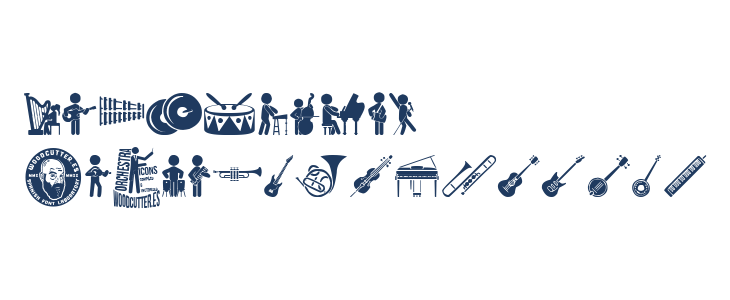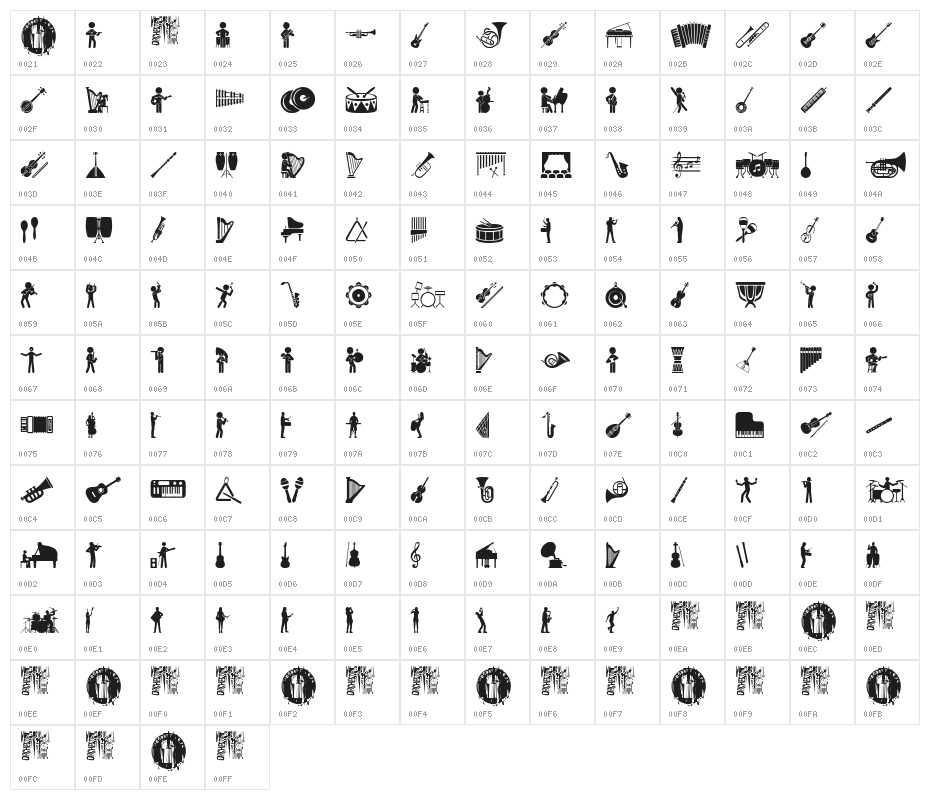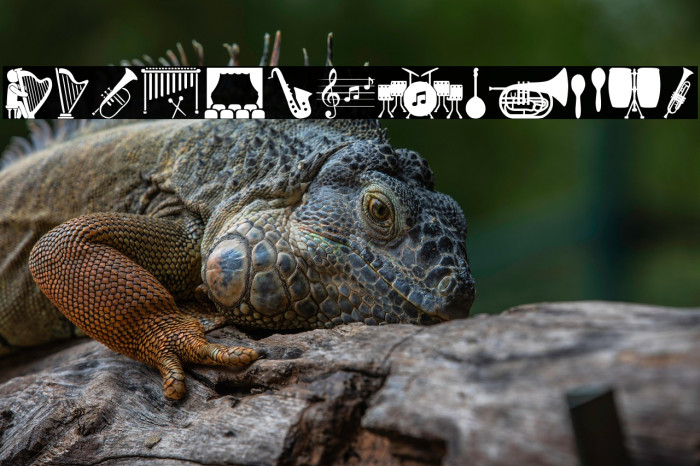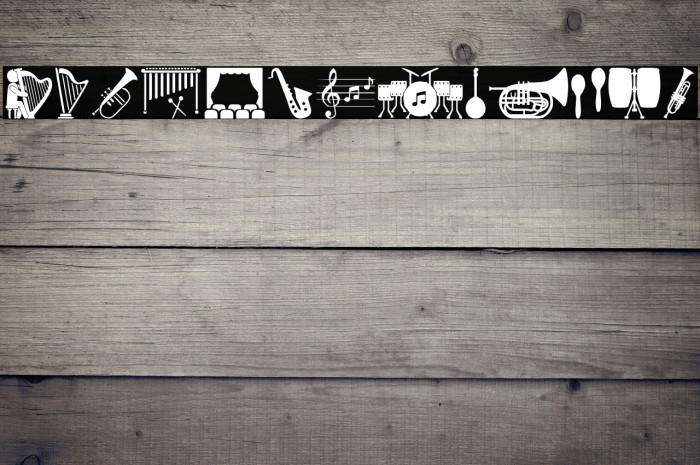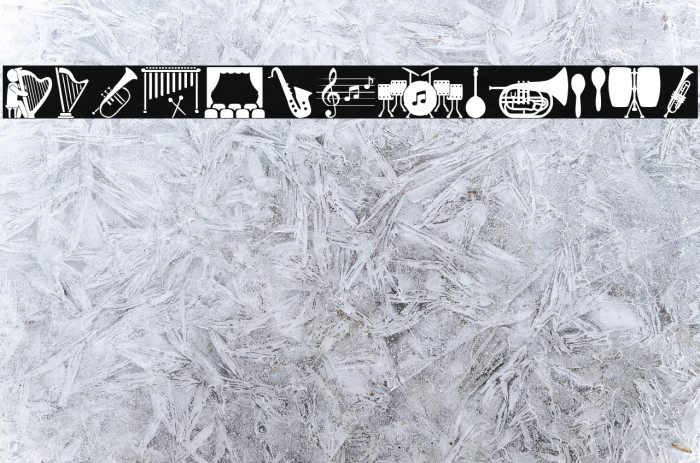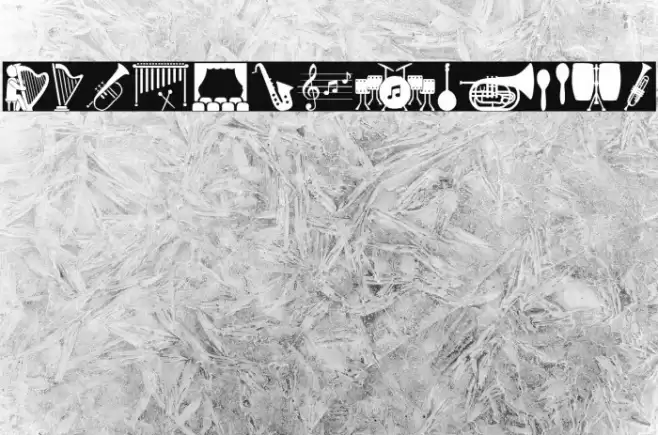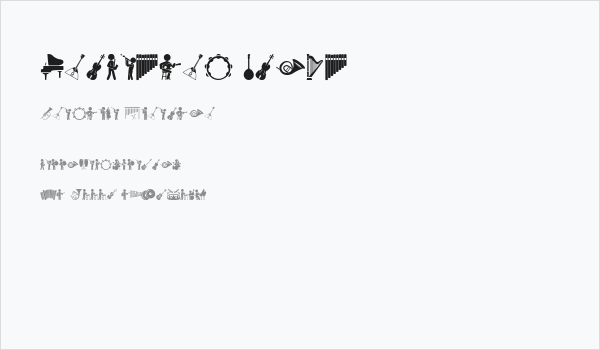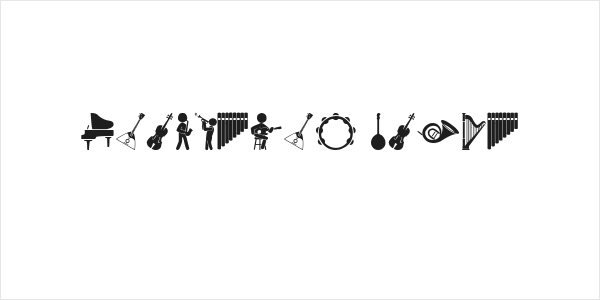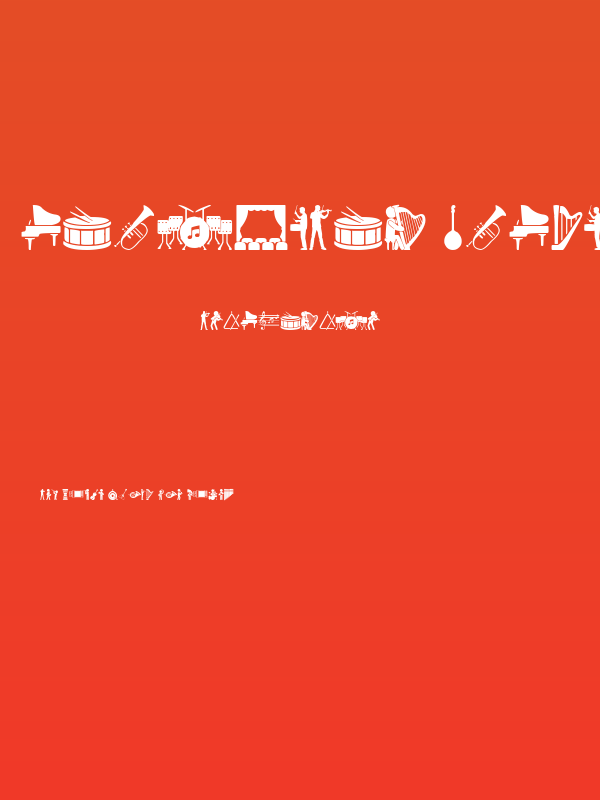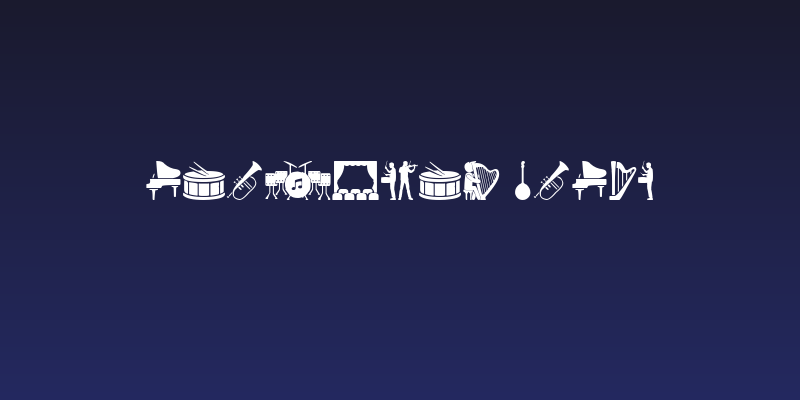
A playful and bold icon set featuring various orchestra instruments, musicians, and music-related scenes, rendered in solid black silhouettes with simplified, cartoon-like forms and minimal detail.
Overall StyleDecorative, Playful, Modern
Use CaseIcons, Logos, Posters, Educational graphics
Proposed ProjectsMusic festival posters, educational materials, children's books, event programs, app icons, infographics.